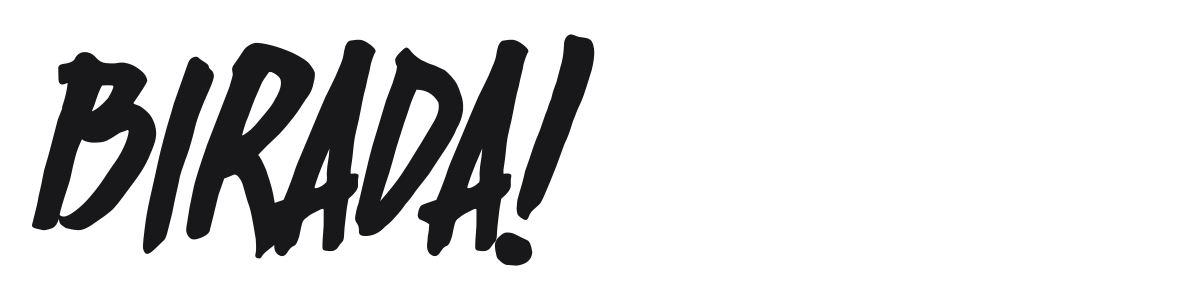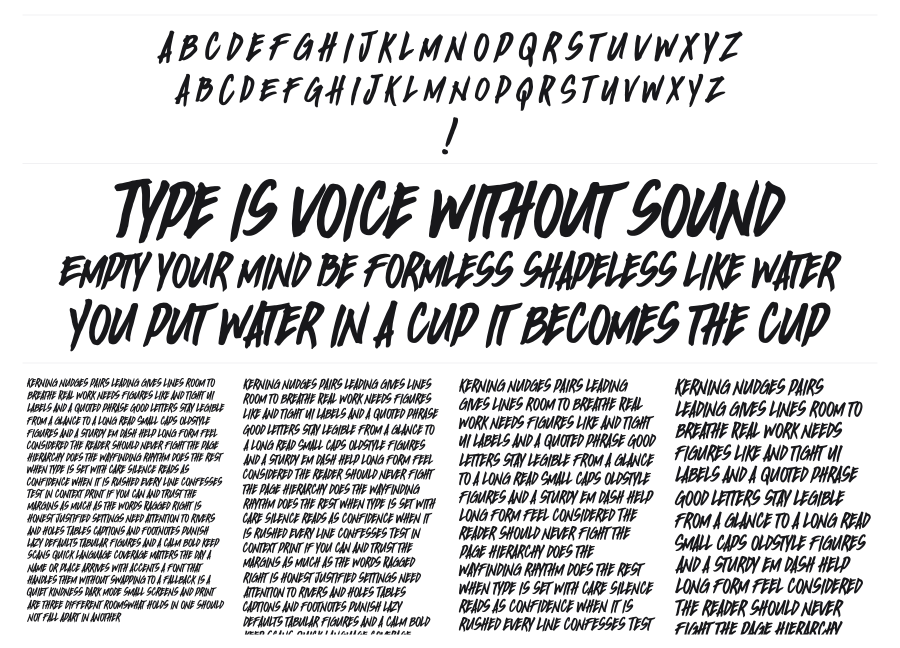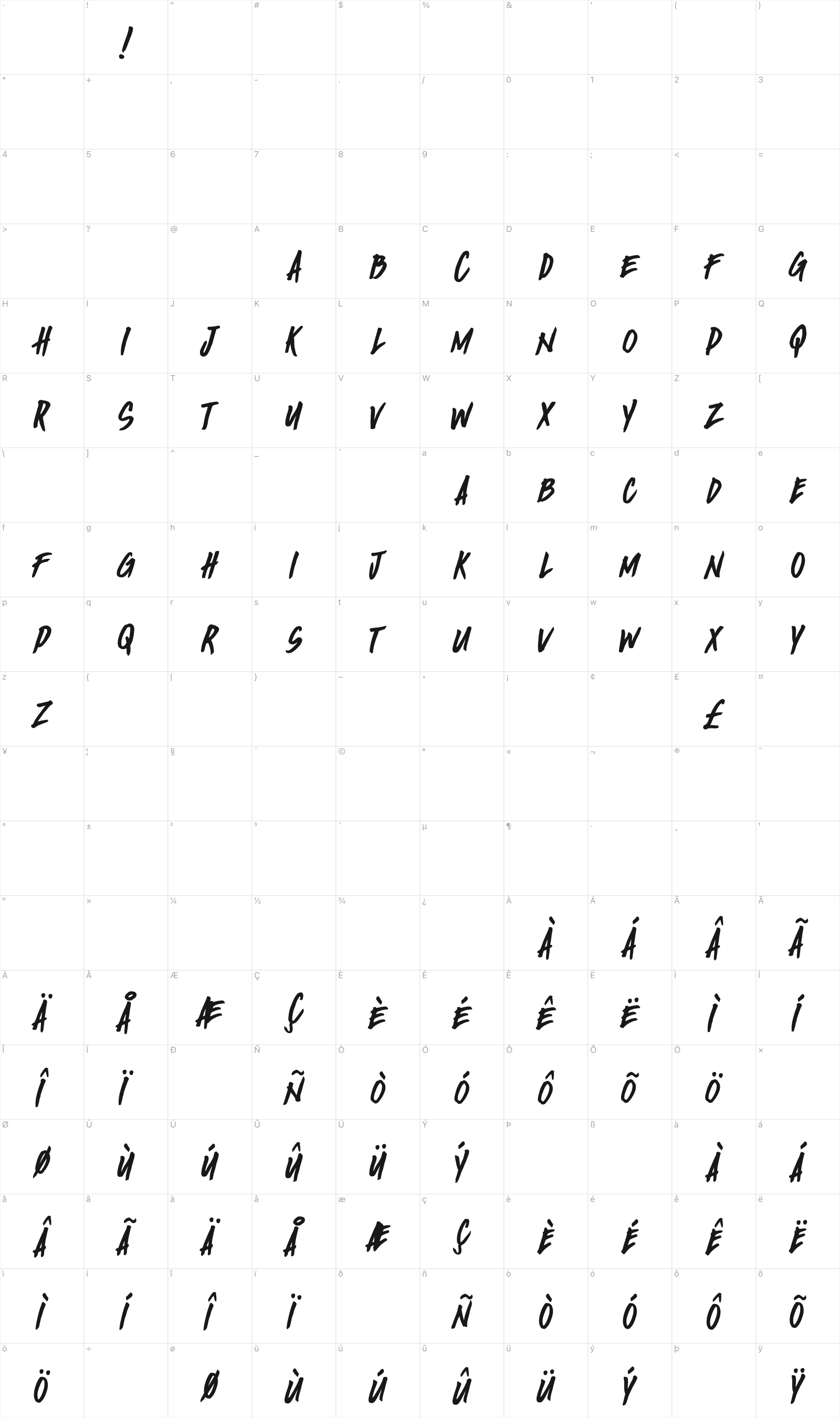
Birada!
Birada! is a bold, oblique brush script with a raw, hand-painted energy and rough edge texture. The heavy strokes and aggressive slant push into graffiti and street-art territory, making it feel fast and gestural. It reads best at large sizes where the textured details can breathe.